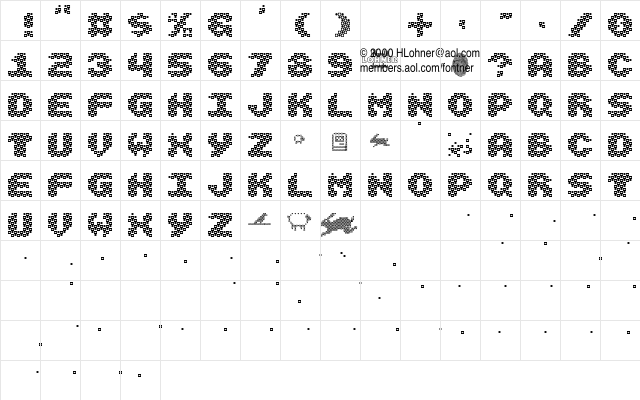
Vasarely Regular
| Copyright | Vasarely computer font v1.0 00 Harold Lohner ( "http://members.aol.com/fontner) Named in honor of Op artist Victor Vasarely; Based on a modular font by Jean Larcher. |
Design Context for Vasarely Typeface
Vasarely is a composed and adaptable typeface that performs quietly and consistently across a wide range of design contexts.